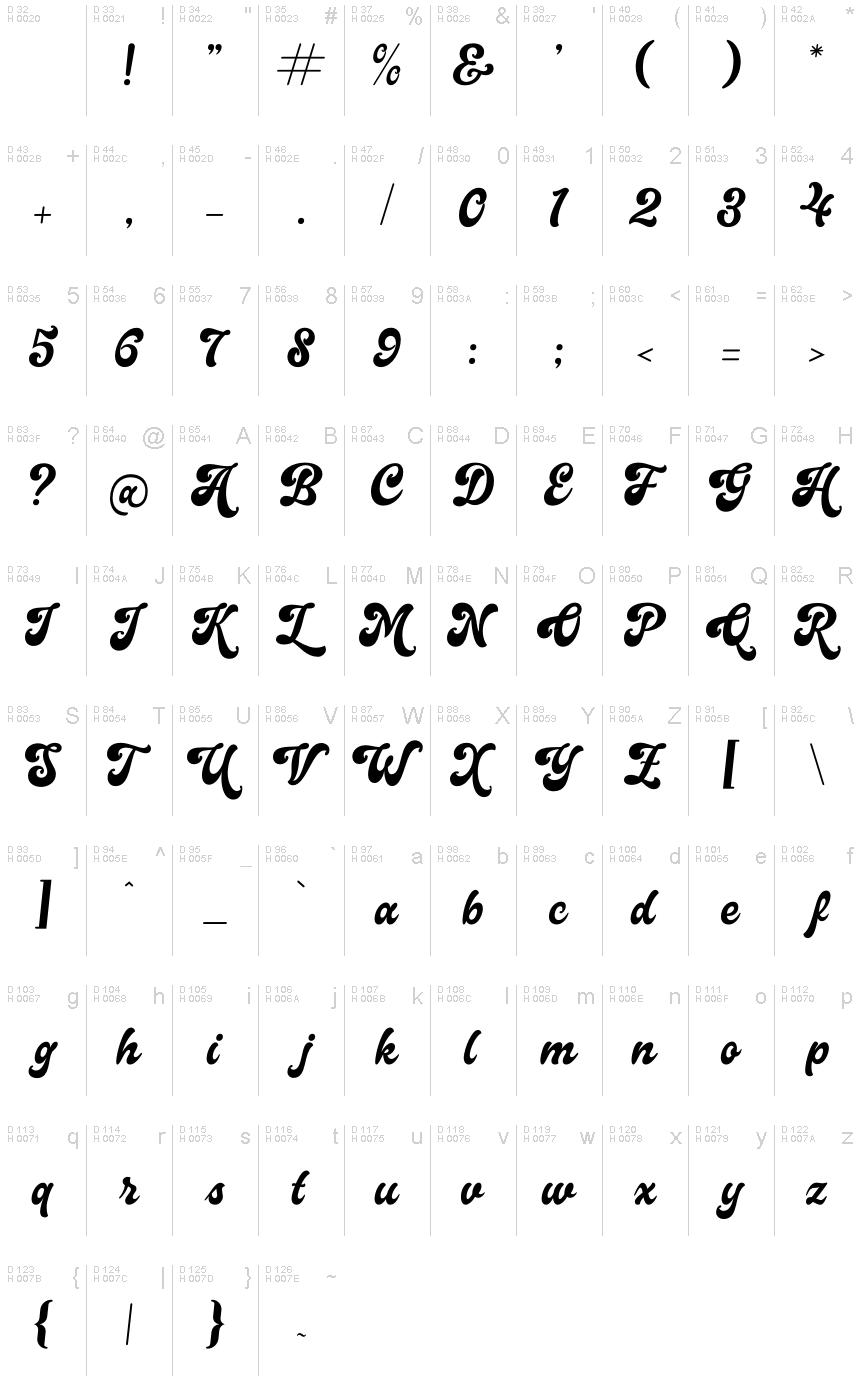
Aloreta Marthin
The font Aloreta Marthin by Storytype Studio is designed in a bold, retro brush style that embodies the graphic essence of vintage design. With its broad heavy lines and lively curves it attracts attention and will be appreciated by those who want to add a touch of nostalgia to their works. The typeface is perfect for logos, posters or invitations when you need something more original.